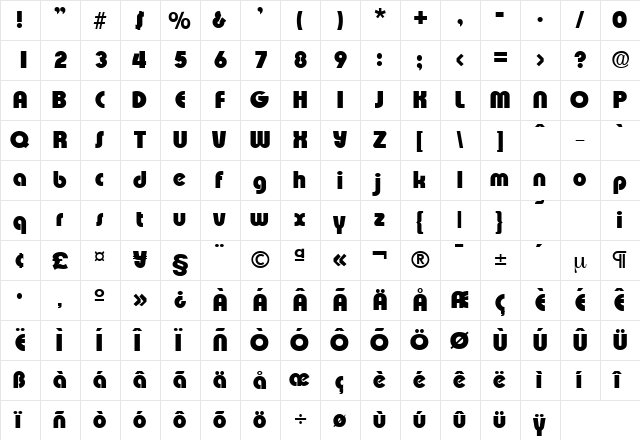
Expressa-Serial-Heavy Extra Bold
Design Context for Expressa-Serial-Heavy Typeface
Expressa-Serial-Heavy is a composed and adaptable typeface that performs quietly and consistently across a wide range of design contexts. The heavy weight commands attention and anchors typographic hierarchies.